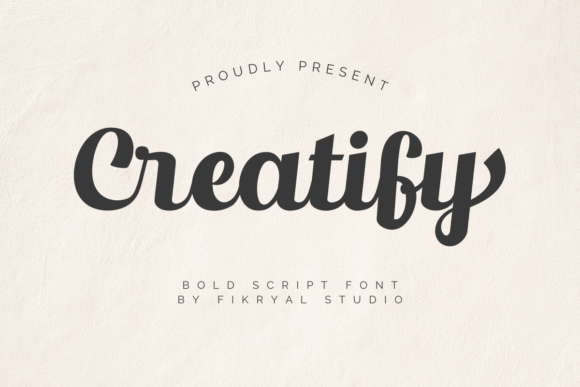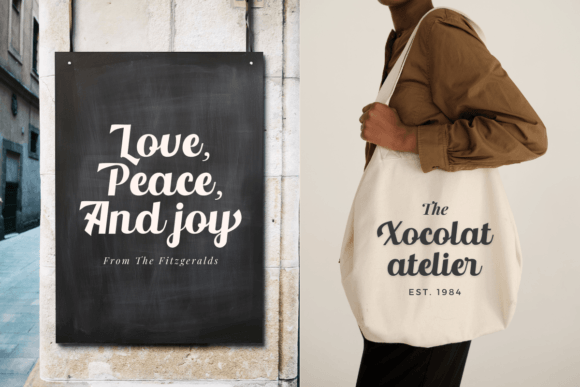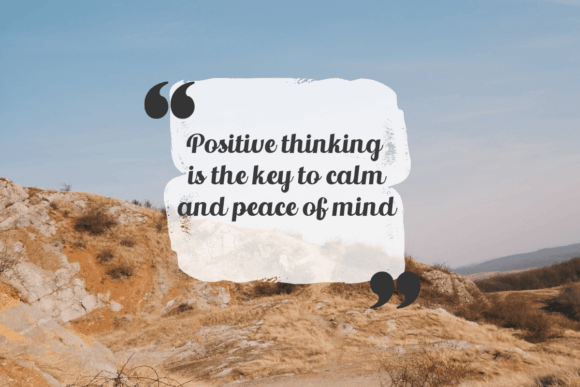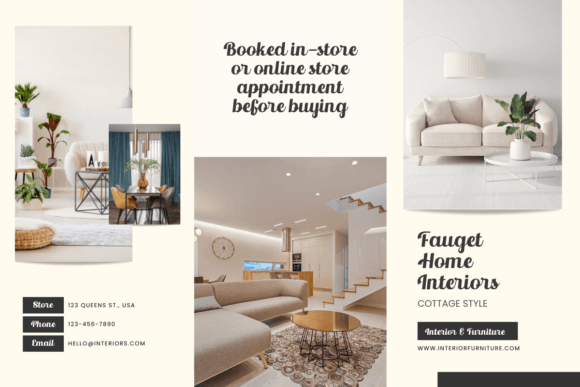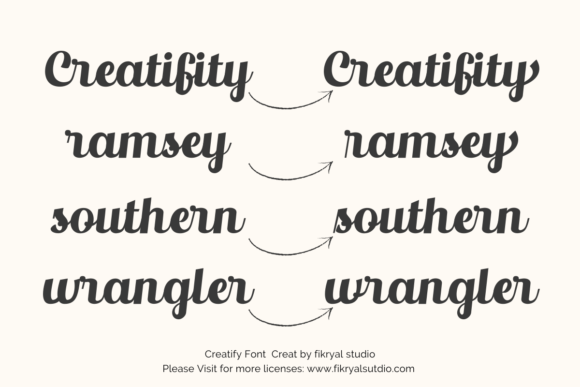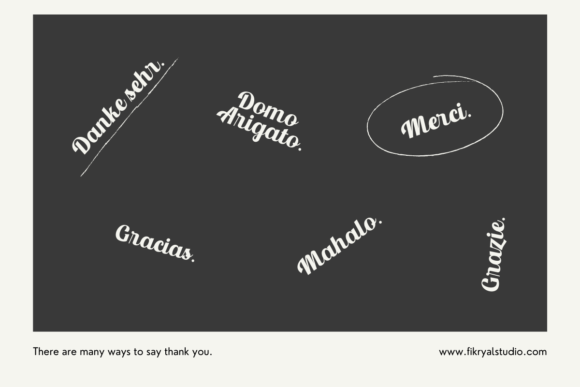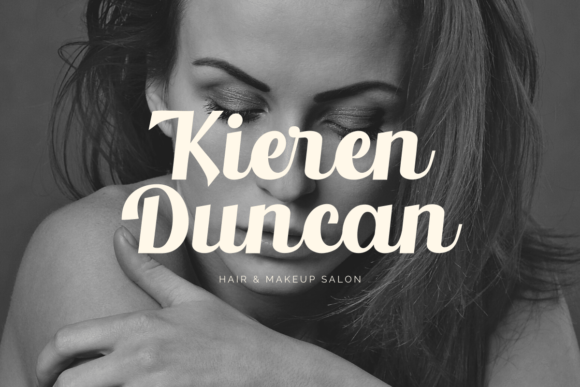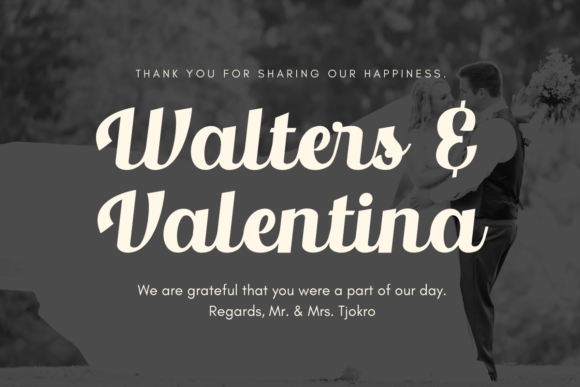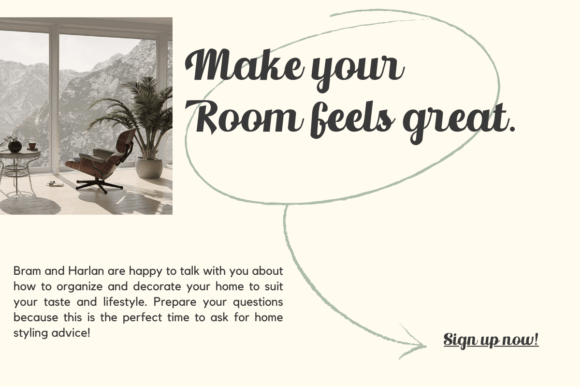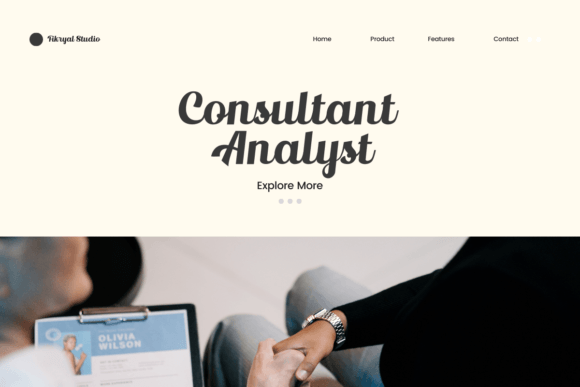
Creatify Font
“Creatify” is a stunning and bold handwritten font that exudes beauty and creativity. Its striking appearance and versatile nature make it an ideal choice for a wide range of design applications. Whether you’re working on logos, branding, titles, social media posts, advertisements, product packaging, labels, photography, watermarks, special events, magazines, web design, or any other creative project, “Creatify” elevates your designs with its bold and artistic flair.
The font’s bold letterforms command attention, making a strong statement in any context. Its unique and handcrafted style adds a touch of personality and sophistication to your text, making it visually captivating. “Creatify” is not just a font; it’s a design tool that empowers your creativity, allowing you to create visually impactful and memorable compositions.
One of the standout features of “Creatify” is its versatility. Its bold and beautiful design adapts seamlessly to different design contexts, enhancing the overall visual appeal of your projects. Whether used for elegant branding or eye-catching social media posts, “Creatify” adds a touch of creativity and elegance to your designs, making them stand out in the crowded digital landscape.
The font’s PUA (Private Use Area) encoding provides easy access to a wide range of glyphs and swashes, enhancing its customization options. Designers can effortlessly access these special characters to add decorative elements and creative variations to their text. With “Creatify,” you have the creative freedom to experiment with different letter combinations and design possibilities, creating unique and visually appealing typography for your projects.
Embrace the boldness and beauty of “Creatify” and let it unleash your creativity. Its artistic and handcrafted style makes a strong visual impact, leaving a lasting impression on your audience. Whether used in print or digital media, “Creatify” transforms your text into a work of art, making your designs visually stunning and captivating. With “Creatify,” you can confidently create designs that reflect your creativity, professionalism, and attention to detail, making a memorable impact on anyone who encounters your work.